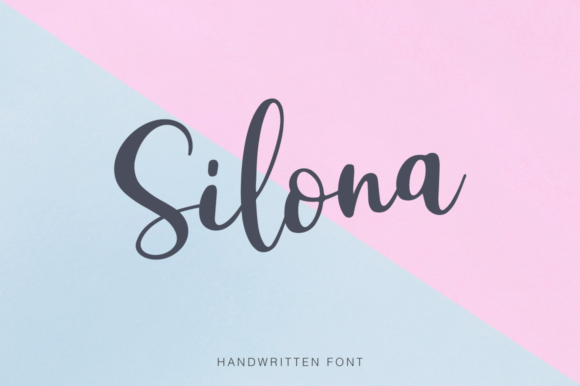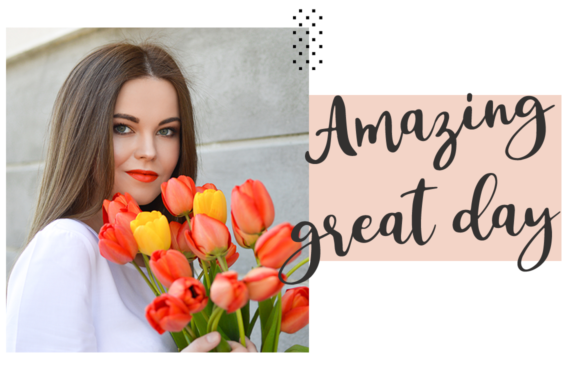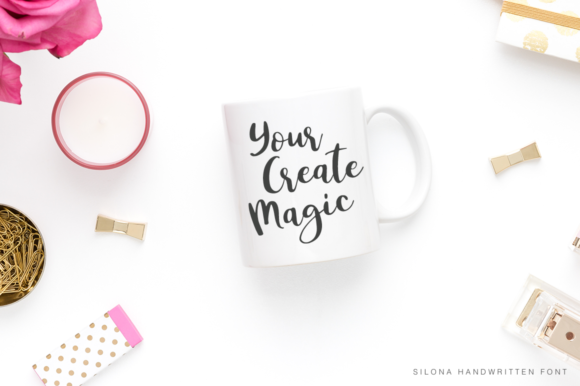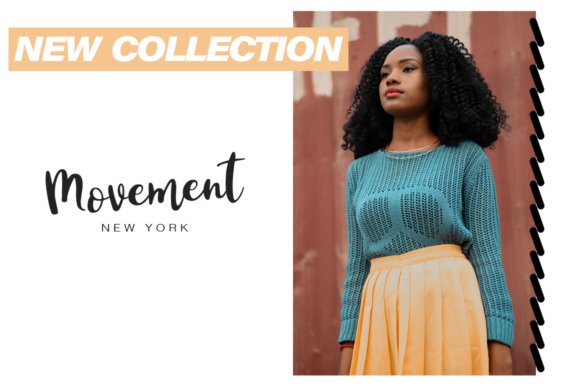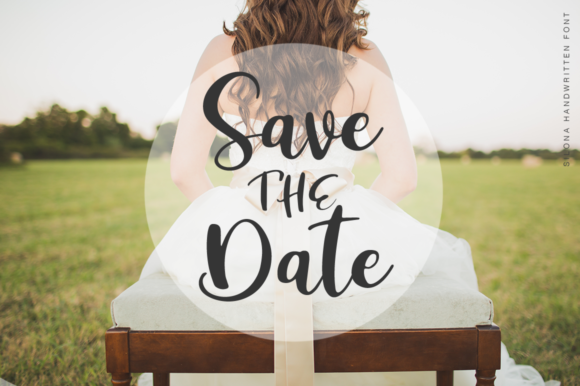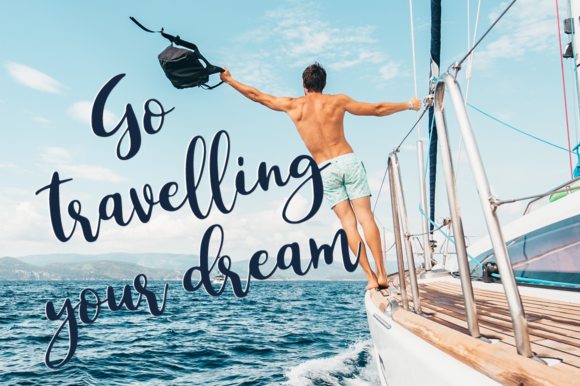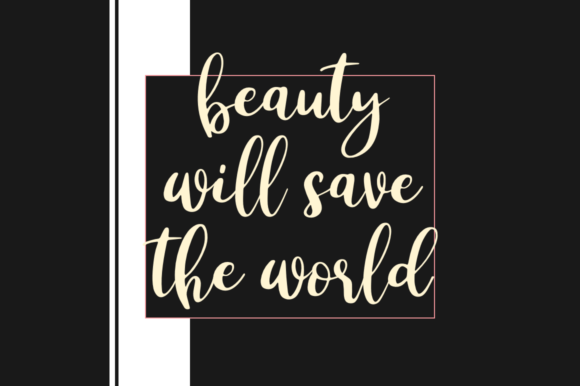
Silona Font
About Silona Font
Silonas is a beautiful script font. Ideal for branding and decorating your projects, wedding invitations, blogs, logos or a beautiful frame for your home.